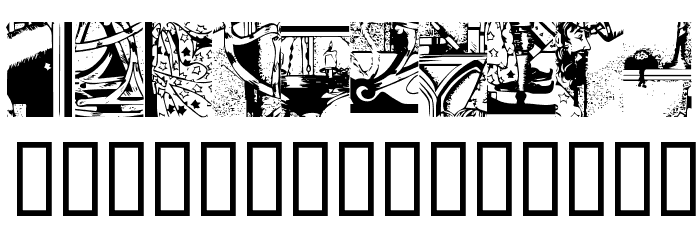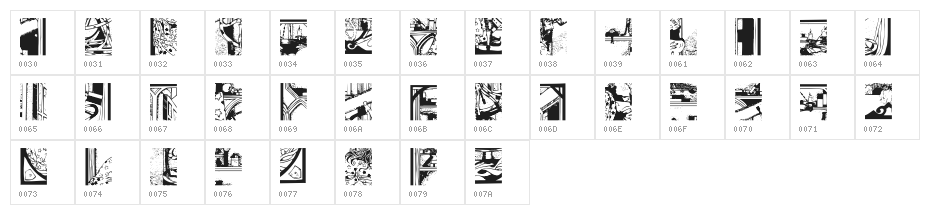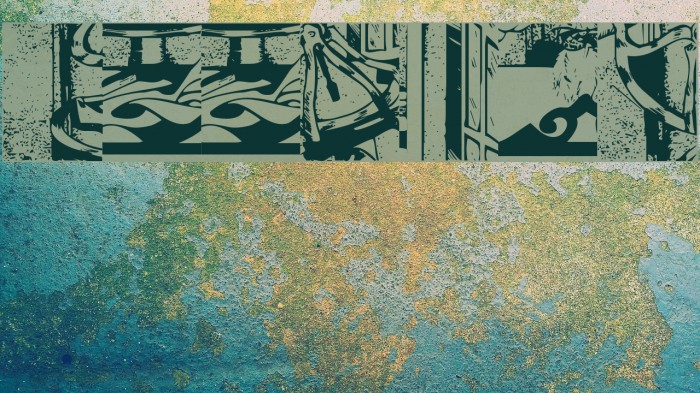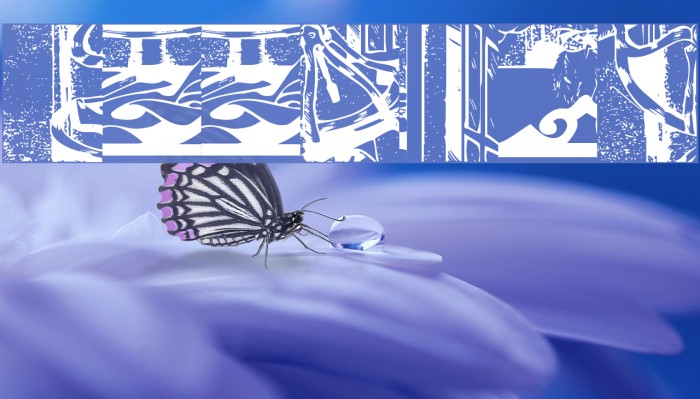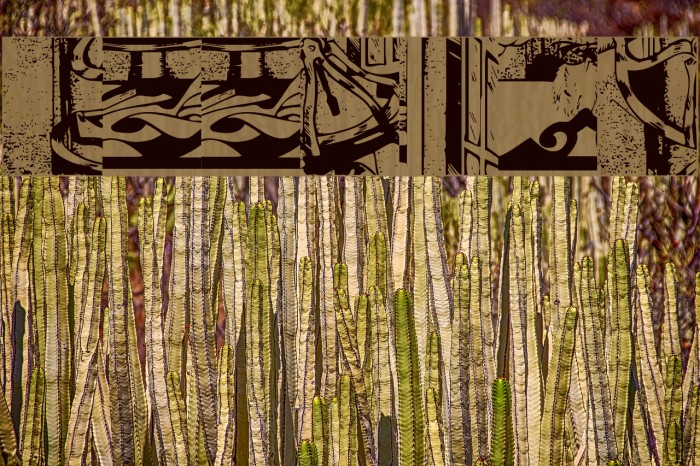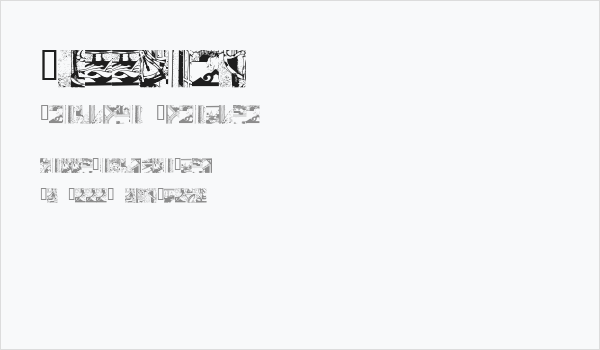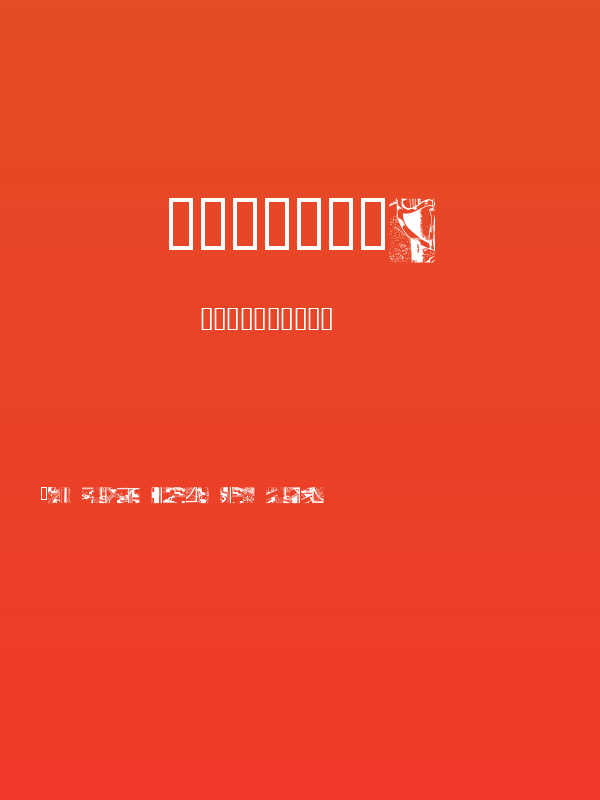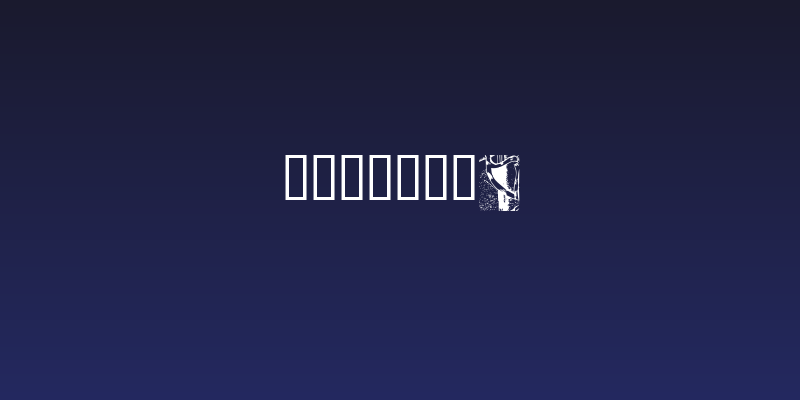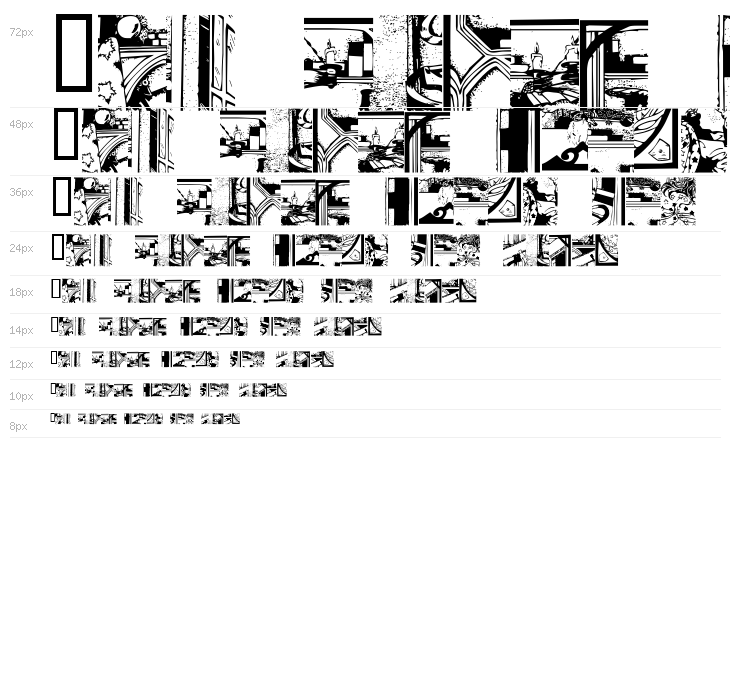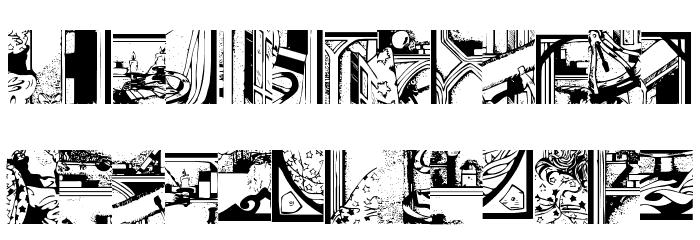
Puzzler3 Font
This font features a highly decorative and intricate design, with each character filled with detailed illustrations and patterns. The characters are enclosed in rectangular frames, giving them a structured appearance. The font combines artistic elements with a sense of mystery and complexity, making it visually striking. The intricate designs within each letter add a layer of depth and creativity, making it suitable for artistic and decorative purposes. The overall style is unique and captivating, drawing attention with its elaborate details.
| Use Case | Logos, Posters, Artistic projects |
| Proposed Projects | Ideal for artistic projects, decorative posters, book covers, and creative branding that requires a unique and eye-catching typeface. |